In modern design, every pixel counts. This collection of 29 condensed sans serif font options is curated to help you deliver powerful messages in tight spaces. Perfect for headlines and branding, these typefaces bring sleek efficiency to any work.
1. Limited Font: Master Narrow Spaces With This Powerful Typeface
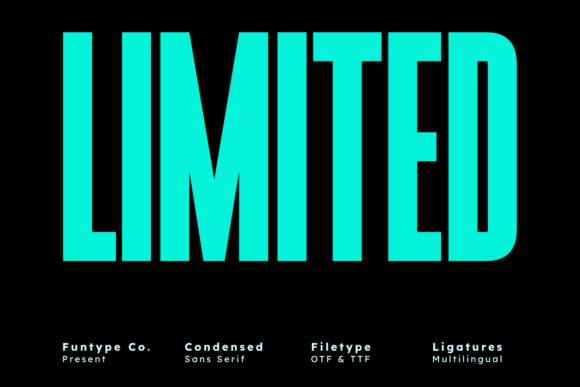
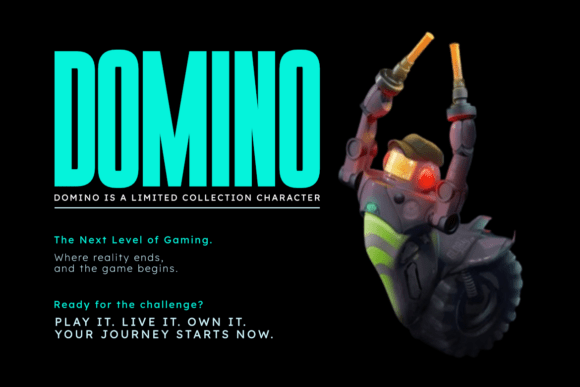
I find that Limited truly stands out when you need to make a massive impact within a restricted horizontal space. This condensed sans serif font features an ultra-tall, narrow structure that commands attention without feeling cluttered. It feels like a powerhouse for modern posters, album covers, and sports graphics where every millimeter of the canvas counts. The clean lines and sharp terminals give it a confident, professional edge that works seamlessly for high-impact advertising and bold headlines.
What makes this typeface a favorite for my collections is its ability to remain perfectly legible despite its extreme proportions. I suggest using it for branding projects that require a futuristic or industrial vibe, as the tight spacing creates a rhythmic, architectural look. Whether you are designing for the gaming industry or contemporary fashion, this condensed sans serif font delivers a striking visual hierarchy that is hard to ignore. It is a reliable choice for any creator looking to balance minimalism with raw strength.
2. Jersey: A Dynamic Condensed Sans Serif Font For Headlines
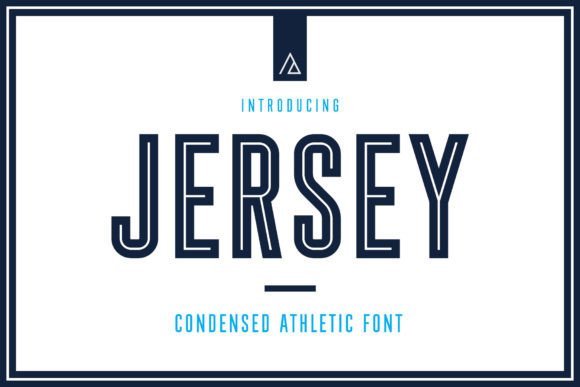
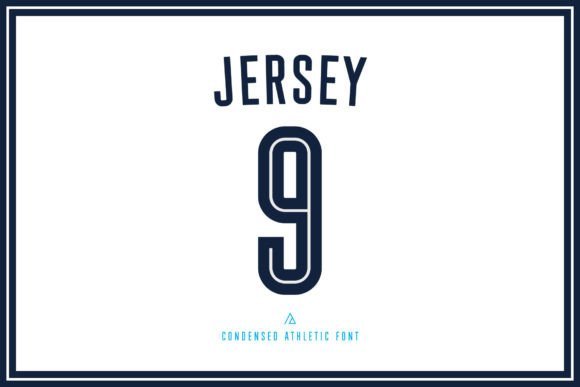
The athletic spirit of Jersey immediately catches my eye as a versatile tool for sports-themed projects. This condensed sans serif font offers a classic collegiate aesthetic, featuring both solid and outline versions that allow for creative layering. It feels incredibly authentic for team uniforms, sports branding, and fan apparel, bringing that unmistakable energy of a football stadium to your screen.
My experience with this typeface shows it is excellent for bold headlines and event posters where a sense of action is required. The inclusion of numbers and symbols makes it a complete package for jersey numbering or digital scoreboards. Because it supports multiple languages and provides a clean, narrow structure, this condensed sans serif font remains a practical choice for merchandise design and social media graphics that need to look sharp and energetic.
3. Vogue: Creating High Impact Visuals For Fashion And Lifestyle Branding
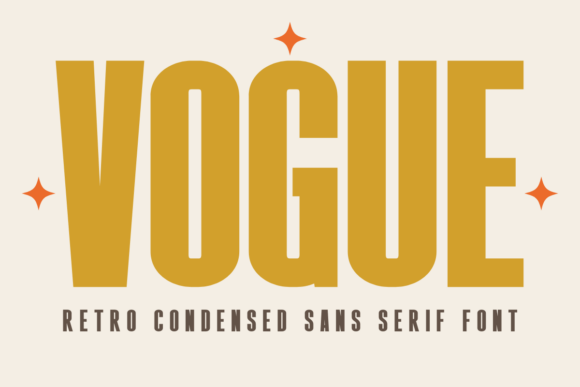
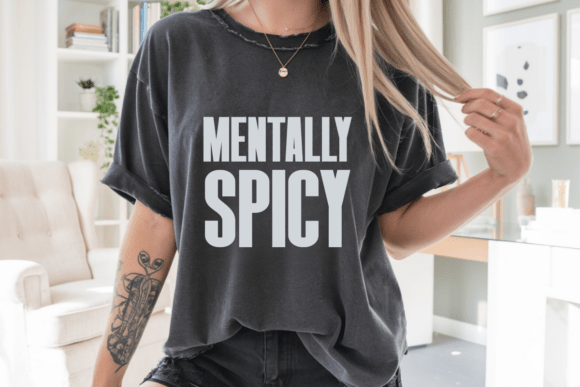
Finding a balance between vintage charm and modern efficiency is easy with Vogue. This condensed sans serif font brings a timeless editorial feel to the table, featuring tall proportions and smooth curves that look incredibly refined. It is a fantastic pick for retro branding and modern vintage layouts where you want to evoke a sense of high-end fashion or classic magazine aesthetics without losing any contemporary edge.
In my curation process, I’ve noticed how well this typeface handles print on demand designs, particularly for t-shirts, tote bags, and stickers. The bold, clean letterforms make it highly compatible with Cricut and Silhouette cutting designs, ensuring that your DIY projects or professional product packaging remain sharp and legible. Whether you are working on social media graphics or eye-catching logos, this condensed sans serif font provides the stylish, space-saving solution your creative toolkit needs.
4. Honest Font: Achieving High Impact With Sophisticated Vertical Style
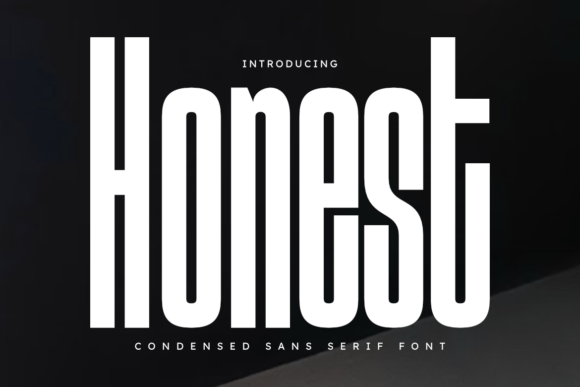
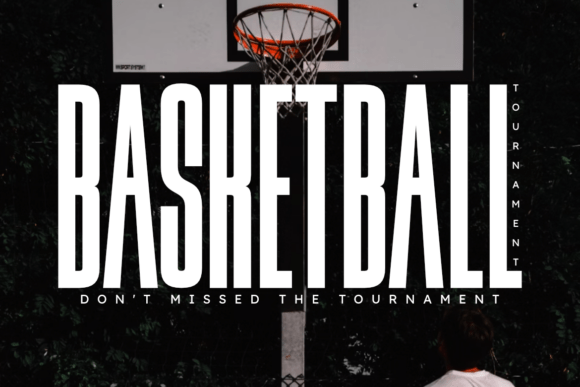
I find that Honest brings a sophisticated, towering presence to any layout without overwhelming the surrounding elements. This condensed sans serif font is defined by its sleek verticality and clean, geometric lines that feel both modern and remarkably confident. It is a fantastic choice for magazine titles, luxury-themed designs, and minimalist branding where you want to convey a sense of high-end elegance through simple, elongated forms.
What stands out to me is how effectively this typeface handles tight horizontal spaces while maintaining a premium feel. I recommend using it for product packaging, bold logos, and event posters that require a strong visual hierarchy. The balance of slim widths and thick strokes makes this condensed sans serif font a versatile tool for headline typography and contemporary advertising that needs to look both professional and sharp.
5. Seriusans: Create High Impact Headlines With Industrial Style
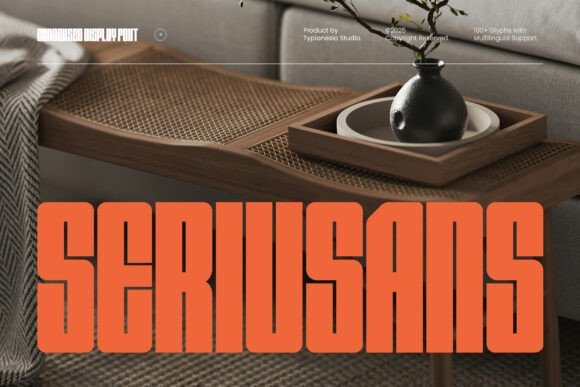
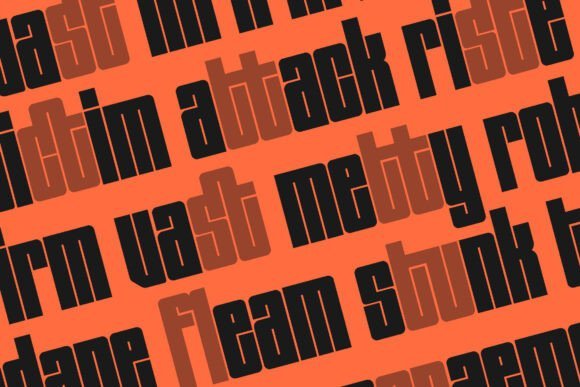
I believe Seriusans is a powerhouse for anyone needing to bridge the gap between industrial strength and digital modernism. This condensed sans serif font features a heavy, block-like structure that feels incredibly grounded and purposeful. It is a top-tier choice for sports graphics, bold posters, and corporate presentations where you want to project a sense of stability and authority without taking up too much horizontal space.
What strikes me about this typeface is how it maximizes visual weight while staying remarkably clean. I recommend using it for web design, advertising campaigns, and editorial layouts that require a high-impact, structured appearance. Whether you are working on product packaging or magazine headlines, this condensed sans serif font ensures your message remains legible and sharp, providing a professional edge to any creative composition.
6. Song: Powerful Letterforms Designed For Maximum Clarity
Bringing a rhythmic and powerful energy to the page, Song is an excellent choice for creators who need their message to resonate. This condensed sans serif font features a heavy, compact structure that feels modern and incredibly clean. It serves as a fantastic foundation for music posters, album covers, and concert promotions, providing a bold visual weight that captures the intensity of a live performance or a soulful track.
In my curation, this typeface stands out for its ability to maintain high clarity even when space is limited. I suggest using it for editorial design, impactful branding, and digital advertisements where you need a strong, authoritative voice. Whether you are working on social media graphics or merchandise, this condensed sans serif font delivers the professional and energetic look required to make a lasting impression in both print and digital formats.
7. Season Font: How To Master Bold Headlines With Massive Letterforms
I consider Season to be a absolute powerhouse for any layout that needs a dominant, monumental presence. This condensed sans serif font features an ultra-bold, high-vertical structure that feels incredibly sturdy yet undeniably stylish. It is a fantastic choice for high-fashion branding, sports apparel, and striking music posters where you want your message to feel as large as life without taking up excessive horizontal room.
What stands out to me is how the thick, all-caps letterforms create a rhythmic, architectural look that is instantly recognizable. I suggest using it for event posters, monumental headlines, and contemporary visual identities that require a clean but aggressive edge. Whether you are designing for a premium lifestyle brand or an athletic campaign, this condensed sans serif font ensures your typography remains the hero of the composition.
8. Mood: How To Master Impactful Typography In Narrow Spaces
I see Mood as a typeface that perfectly captures a contemporary, edgy vibe while maintaining a surprisingly clean structure. This condensed sans serif font features ultra-tall proportions and a unique construction that feels both expressive and incredibly bold. It is an ideal pick for fashion editorials, music covers, and distinctive logos where you want to establish a strong visual presence that feels both modern and professional.
What draws me to this specific design is the PUA encoding, which allows for easy access to all the stylistic alternates that help a project feel custom-made. I recommend using it for impactful headlines, product packaging, and sports graphics where horizontal space is at a premium but you still need to grab attention instantly. This condensed sans serif font truly delivers a distinctive personality, ensuring your branding projects and advertising campaigns leave a lasting impression.
9. Seven Season: How To Master Layered Effects With Outline Styles
Looking at the playful, blocky letterforms of Seven Season, it is easy to see why this typeface is a go-to for anyone chasing a groovy, retro aesthetic. This condensed sans serif font features a super bold structure that instantly teleports your designs back to the vibrant energy of the 70s and 80s. It is a brilliant fit for retro branding, t-shirt designs, and 70s and 80s themed projects where you want to lean into a chunky, nostalgic vibe that feels both fun and authoritative.
One of the best parts about this specific design is the inclusion of both Regular and Outline styles, which allow for some really creative layering and color-blocking. My recommendation is to use it for oversized headlines, product packaging, and bold display typography that needs to scream personality. This condensed sans serif font provides all the visual weight you need to make your nostalgic graphics stand out while keeping your layout tight and organized.
10. Bond Font: How To Achieve Maximum Clarity In Space-Conscious Design
The technical precision of Bond is something that immediately grabs my attention, especially with those unique inktrap details that give it such a modern, architectural character. This condensed sans serif font is engineered for maximum efficiency, balancing sharp geometry with functional cutouts that ensure every letter remains crisp. It feels like a masterclass in space-conscious design, making it a go-to for editorial layouts, structured branding, and technical visual identities.
Beyond its sleek look, the multiple styles in this family offer incredible flexibility for building a consistent typographic system. I suggest applying it to bold titles, modern posters, and digital interfaces where legibility in tight spaces is a priority. Because it is PUA encoded and features high-contrast outputs, this condensed sans serif font excels in both high-impact advertising and minimalist packaging, proving that high-performance tools can also be beautiful.
11. Bloom: The Bold Choice For High Impact Modern Headlines
I recognize Bloom as a heavyweight champion for designers who need to dominate a layout with a clean, contemporary aesthetic. This condensed sans serif font brings a solid weight and a powerful structure that commands immediate visibility. It serves as an exceptional choice for dominant headlines, professional branding, and large-scale poster designs where you want your typography to feel both sleek and authoritative.
I recommend using this all-caps typeface whenever your message requires maximum confidence and clarity across digital and print media. Its versatile nature makes it perfect for social media graphics and modern creative projects that need to stand out in a crowded feed. Whether you are working on packaging or impactful advertising, this condensed sans serif font ensures your visual identity remains sharp and unforgettable.
12. Moonlight: How To Use Unique Ligatures For Custom Branding
I believe Moonlight is a fantastic discovery for anyone who wants to inject a bit of modern flair into a very narrow space. This condensed sans serif font features an ultra-tall, bold design that immediately captures the eye, making it a natural fit for t-shirt design, modern posters, and logos. What really sets it apart are the 23 unique ligatures, which allow you to create custom-looking typography that feels bespoke rather than standard.
I suggest using this typeface for Cricut projects, crafts, and digital branding because its clean edges make for incredibly easy cutting and high-resolution printing. The balance between its slender width and heavy weight ensures that your creative projects remain impactful and stylish. It is a highly versatile condensed sans serif font that brings a sophisticated, contemporary touch to both physical merchandise and on-screen graphics.
13. Brunson: Why This Heavy Typeface Defines Modern Visual Authority
The raw energy of Brunson immediately makes it a favorite for projects that need to shout rather than whisper. This condensed sans serif font features heavy, loud characters available in both a clean Regular style and a textured Rough version. It is a fantastic choice for revolutionary posters, movie titles, and digital banners where you want your message to feel gritty, powerful, and completely unavoidable.
The tight kerning and massive vertical presence ensure that every word carries a significant visual punch. My suggestion is to apply it to album covers, impactful branding, and oversized headlines that require a rugged, modern edge. Having two distinct styles in one package provides incredible versatility, making this condensed sans serif font a reliable tool for any designer looking to create a bold, high-contrast look that stands out in a crowded space.
14. Blonden Font: The Sleek Solution For Modern Brand Identity
Stepping into the spotlight with a fusion of streamlined efficiency and modern flair, Blonden is a standout choice for space-conscious layouts. This condensed sans serif font manages to feel incredibly sleek without losing its approachable, trendy vibe. It functions beautifully for brand identity and packaging projects where you need a bold statement that doesn’t feel crowded or overwhelming on the shelf.
What draws me to this specific typeface is its natural ability to make any creative project look instantly more high-end and current. My suggestion is to use it for greeting cards, poster designs, and eye-catching digital banners that require a touch of elegance. Because of its narrow form, this condensed sans serif font excels in tight compositions, ensuring that your modern design projects maintain a clean and professional aesthetic across both print and digital media.
15. Thinger: Striking Typography For Social Media And Large Scale Posters
I see Thinger as a true heavyweight for anyone looking to achieve maximum visibility without sacrificing a clean, contemporary aesthetic. This condensed sans serif font features solid, narrow letterforms and a powerful structure that commands immediate attention. It serves as an exceptional choice for dominant headlines, professional branding, and large-scale poster designs where you want your typography to feel both sleek and authoritative.
I believe this versatile all-caps typeface ensures your message is delivered with total confidence across digital and print media. Its bold presence makes it perfect for social media graphics and any modern creative project that requires a strong visual identity. Whether you are designing for impactful advertising or high-end packaging, this condensed sans serif font provides the clarity and punch needed to make your designs truly unforgettable.
16. Freedom: Mastering Clean And Aggressive Typography For Modern Projects
Bringing an intense sense of unrestricted energy to any canvas, Freedom is a powerhouse for creators who need to make a loud, unapologetic statement. This condensed sans serif font features a thick, solid construction with a slightly aggressive stance that feels both grounded and modern. It serves as a fantastic foundation for urban culture branding, sports design, and impactful headlines where you want to project raw confidence and strength.
Choosing this typeface ensures your message carries maximum visual punch in both digital and print formats. I suggest using it for large format posters, music promotions, and contemporary visual identities that require a clean yet memorable look. The tight, tall letterforms of this condensed sans serif font allow it to dominate the space effectively, providing the bold, professional edge needed for high-stakes advertising campaigns and dynamic typography projects.
17. Narrow Font: How To Master Sophisticated Layouts In Tight Spaces
Blending a modern aesthetic with refined classic touches, Narrow is a standout choice for those seeking elegant yet authoritative typography. This condensed sans serif font features tall letterforms and clean details that ensure a strong visual impact even in limited horizontal spaces. It feels incredibly balanced, making it a natural fit for editorial layouts, professional branding, and minimalist logos that need to communicate sophistication.
My collection benefits greatly from this typeface because it handles social media graphics, packaging, and bold headlines with effortless clarity. The inclusion of ligatures and both case sets provides the flexibility needed for creative posters and modern advertising campaigns. If you are looking for a condensed sans serif font that maintains a high-end feel while being exceptionally space-efficient, this is a reliable tool for your next design project.
18. Sanson: The Ultimate Choice For Bold Modern Headlines
I view Sanson as a powerhouse choice for any layout that needs a commanding, high-impact presence. This condensed sans serif font features tall, narrow letterforms and clean lines that make a strong visual statement without feeling cluttered. It is a fantastic fit for sports branding, magazine titles, and bold headlines where you want your typography to look both modern and professional.
I suggest using this typeface for social media graphics, packaging, and advertising campaigns that require high legibility in tight spaces. Its vertical strength ensures your message stands out on large-scale posters and digital banners alike. Because it balances a sleek aesthetic with raw power, this condensed sans serif font is a versatile tool for creating a memorable visual identity in any creative project.
19. Nothing: A Powerful Condensed Sans Serif Font For Fashion Branding
Taking up significant vertical space with its dramatic and ultra-narrow architecture, Nothing is a typeface that demands an immediate reaction. This condensed sans serif font relies on extremely tall letterforms and clean geometric shapes to deliver a look that is both minimal and incredibly powerful. It serves as a fantastic choice for striking headlines, modern advertising, and fashion editorials where you need a dominant visual presence that doesn’t feel cluttered or wide.
My curation often features this style for projects like music covers, movie titles, and product packaging because of its unique ability to remain legible while pushing the boundaries of verticality. The bold, sharp edges make it equally effective for sports designs and minimalist logos that require a contemporary edge. If you are looking for a condensed sans serif font that combines a sleek aesthetic with maximum visual impact, this is a versatile tool for any high-end creative project.
20. Influencer Font: Striking Visuals For Editorial And Poster Design
I view Influencer as a powerhouse choice for any project that needs to speak with a loud and assertive voice. This condensed sans serif font features strong geometric lines and a tight structure that creates a commanding presence on the page. It serves as a fantastic foundation for powerful headlines, impactful branding, and striking posters where you want your message to be felt as much as it is seen.
What stands out to me is how the tall, narrow form of this typeface manages to dominate a composition without feeling bulky. I suggest applying it to editorial layouts, professional advertising, and modern visual identities that require a high-impact aesthetic. Because it balances a serious tone with contemporary style, this condensed sans serif font ensures your design remains both professional and unforgettable in any digital or print media.
21. Tallica: How To Balance Space Optimization With High Legibility
Exploring the boundaries of ultra-compressed design, Tallica emerges as a champion of both form and function. This condensed sans serif font defies the common trap of sacrificing legibility for style by boasting a generous x-height and modernized ink traps. It feels like a high-performance tool for impactful headlines, logo design, and book covers where every pixel of space must be optimized without losing clarity.
The versatility of this family is what truly grabs my attention, offering everything from delicate thin weights to a commanding bold presence. I suggest utilizing its 400 glyphs for global branding projects, product packaging, and captivating displays in restricted environments. Because it transitions seamlessly into oblique counterparts, this condensed sans serif font provides a wealth of nuanced expression for any professional or creative typographic system.
22. Vancouver: The Perfect Bold Choice For Professional Headlines
I appreciate Vancouver for its deceptive simplicity and the professional weight it carries in every character. This condensed sans serif font strikes a perfect balance between being bold and staying approachable, making it a reliable foundation for film posters, headlines, and block letters. It has a clean, geometric soul that feels at home in both vintage-inspired layouts and ultra-modern digital environments.
I suggest utilizing its strong presence for logo designs, subheadings, and branding projects that require a sturdy, confident voice. This condensed sans serif font is built to remain clear and impactful across a variety of formats, providing a polished look that works beautifully for promotional materials or editorial design. Its versatility is its greatest strength, ensuring your message is delivered with authority and style.
23. Mini Bold Font: The Ultimate Choice For High Impact Sports Branding
Bringing a massive burst of energy to any layout, Mini Bold is a standout choice for creators who need their message to carry significant weight. This condensed sans serif font features ultra-tall, heavy letterforms that create a powerful visual rhythm on the page. It serves as an exceptional foundation for sports designs, bold branding, and high-impact posters, ensuring your typography remains the center of attention without feeling cluttered.
In my curation, this typeface is a favorite for its ability to maintain incredible clarity while dominating the vertical space. I suggest using it for apparel design, editorial layouts, and modern advertising where a sleek yet authoritative voice is required. Whether you are working on social media graphics or logos, this condensed sans serif font delivers the professional strength needed to make a lasting impression in both print and digital environments.
24. Godplan: Elevate Your Streetwear Designs With Powerful Letterforms
I look at Godplan and see a typeface that truly embodies strength and modern authority through its architectural, tall structure. This condensed sans serif font carries a significant visual weight, making it a reliable tool for anyone who needs to pack a lot of punch into a narrow horizontal space. It feels grounded yet energetic, offering a clean look that ensures your message is both seen and felt immediately.
I recommend this typeface for gym apparel, motivating posters, and urban streetwear branding because of its bold, masculine energy. It also works seamlessly for cinematic film titles and sports branding where a powerful visual identity is a must. Since it is fully PUA encoded, this condensed sans serif font is incredibly easy to use for social media graphics and Print On Demand projects, providing a sharp edge to every design.
25. Bold Block: A Powerful Condensed Sans Serif Font For Modern Branding
Looking at the solid and unapologetic structure of Bold Block, it is clear that this typeface was built to anchor a design with absolute confidence. This condensed sans serif font uses its tall letterforms and clean geometric shapes to create a modern look that feels both sturdy and incredibly sleek. It serves as a fantastic choice for dominant headlines, impactful branding, and professional logos where you want your message to carry significant visual weight.
My recommendation is to apply this typeface to large-scale posters, modern packaging, and social media designs that require high clarity in a compact format. Because of its thick strokes and narrow profile, this condensed sans serif font ensures your text remains sharp and readable even in crowded layouts. Whether you are working on digital advertisements or merchandise, Bold Block provides the authoritative edge needed for any contemporary creative project.
26. Salty Beach: Perfecting Your Next Print On Demand Project
I recognize Salty Beach as a breath of fresh air for any layout that needs to feel both sophisticated and modern. This condensed sans serif font features tall, narrow letterforms with elegant spacing that instantly creates a clean, professional look. It is a fantastic choice for cinematic visuals, minimalist branding, and film titles because it manages to be impactful without overwhelming the rest of your design elements.
I recommend using this typeface for print-on-demand projects like t-shirts, mugs, and tote bags because its sleek lines translate beautifully onto physical products. Its versatile nature makes it just as effective for modern packaging as it is for playful crafting projects. If you need a condensed sans serif font that balances a trendy aesthetic with high legibility, this is a reliable tool to keep in your creative kit.
27. TRT Burn: Achieving A Focused Look In Modern Advertising
Bringing a sharp, assertive tone to any layout, TRT Burn is a powerhouse for designers who need to pack a punch without wasting a single pixel of horizontal space. This condensed sans serif font features confident vertical proportions and refined geometry that ensure your text remains legible and professional. It functions as a reliable typographic voice for bold headlines, editorial design, and structured brand systems where efficiency is just as important as style.
My recommendation is to utilize this versatile typeface for web interfaces, UI design, and modern packaging because of its consistent performance across digital and print media. The balanced stroke contrast makes it an exceptional choice for digital products and advertising posters that demand a focused, contemporary look. If you are working on space-conscious layouts, this condensed sans serif font provides the necessary clarity and presence to keep your designs looking sharp and organized.
28. Hoodie: How To Create High Impact Sports Branding
I look at Hoodie and see a typeface that perfectly captures an aggressive, urban energy through its thick, solid strokes and tall construction. This condensed sans serif font was clearly built for high-impact visuals, offering a sturdy architectural feel that commands attention in any layout. It feels like a powerhouse tool for anyone aiming for a strong, industrial, or sporty look without wasting any horizontal space.
I suggest using this typeface for streetwear apparel, sports jerseys, and gym wear because its energetic presence is tailor-made for the Print On Demand market. It also performs exceptionally well for cinematic film titles, bold headlines, and social media graphics that need to grab a viewer’s eye instantly. Being fully PUA encoded, this condensed sans serif font is as practical as it is stylish, making it a reliable asset for both trendy clothing lines and professional branding.
29. Edition: Create Powerful Visuals With Compact Letterforms
Presenting an ultra-condensed architecture that immediately grabs the spotlight, Edition is a masterclass in impactful, space-saving design. This condensed sans serif font features a remarkably tall structure and compact width, making it a natural choice for strong headlines, modern posters, and album covers. It has a clean, confident personality that provides your visuals with a striking and professional appearance without any unnecessary bulk.
My suggestion is to apply this typeface to sports graphics, high-impact advertising, and branding projects where you need to deliver a powerful message in a limited horizontal area. Because of its solid weight and refined geometry, this condensed sans serif font ensures every word feels deliberate and bold. Whether you are working on digital banners or print media, Edition brings a fresh, contemporary edge to any creative composition.
Final Thoughts
From aggressive sports branding to sleek fashion editorials, the versatility of these condensed sans serif fonts is unmatched. Experiment with these 29 options to see which structure best fits your creative vision and brand personality.